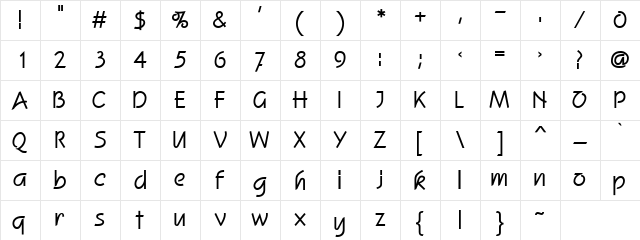
Kimlon Regular Free Font
Kimlon Regular
Design Context for Kimlon
Kimlon is a composed and adaptable typeface that performs quietly and consistently across a wide range of design contexts.